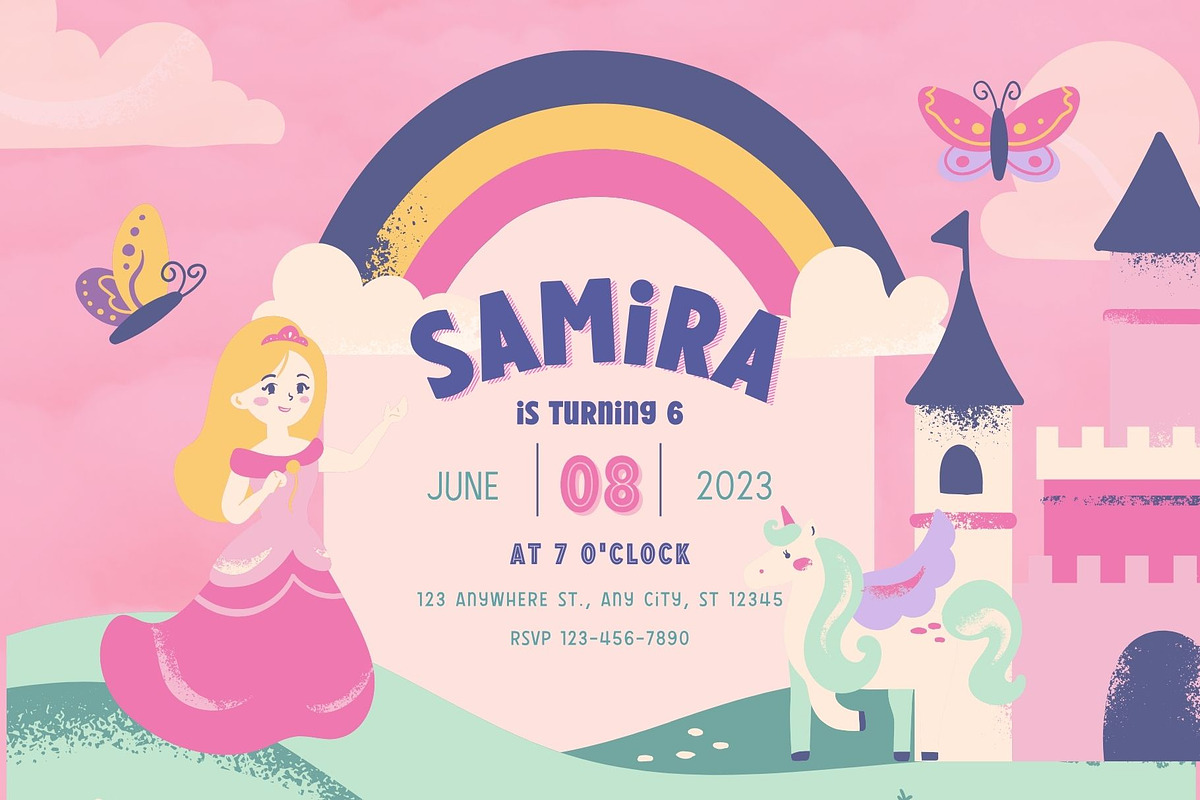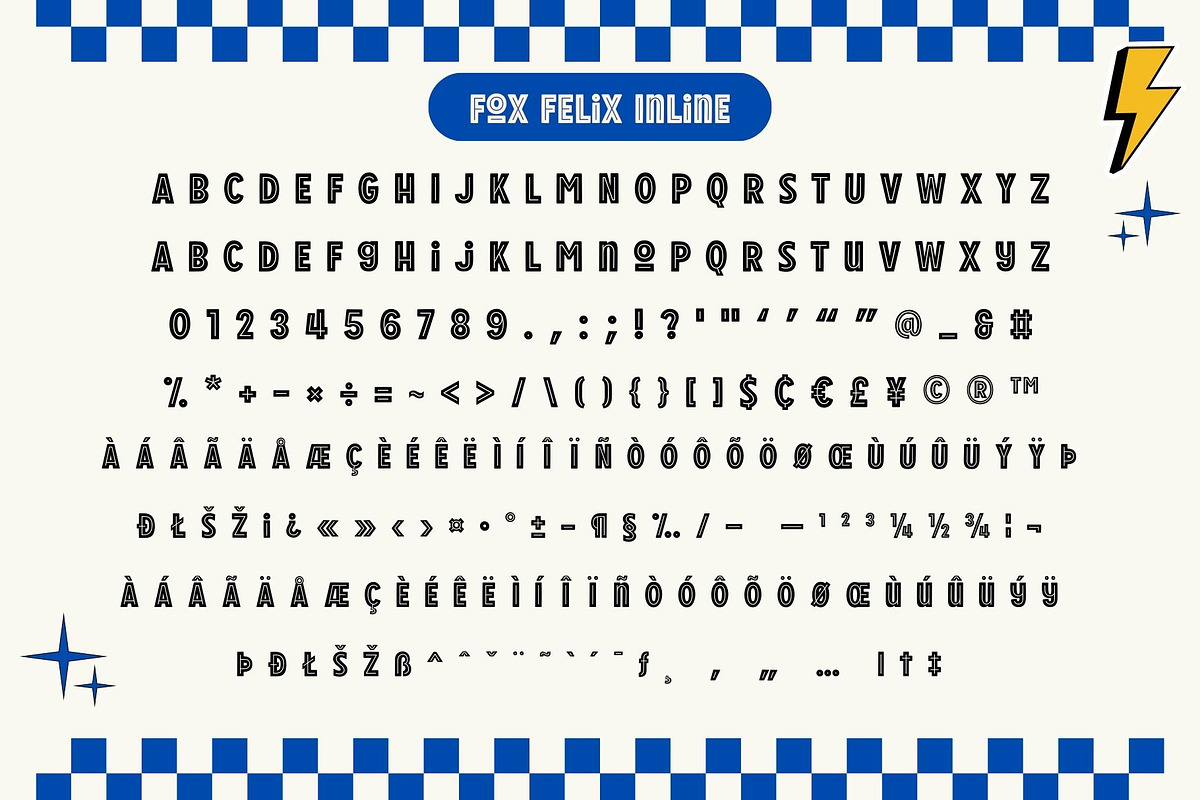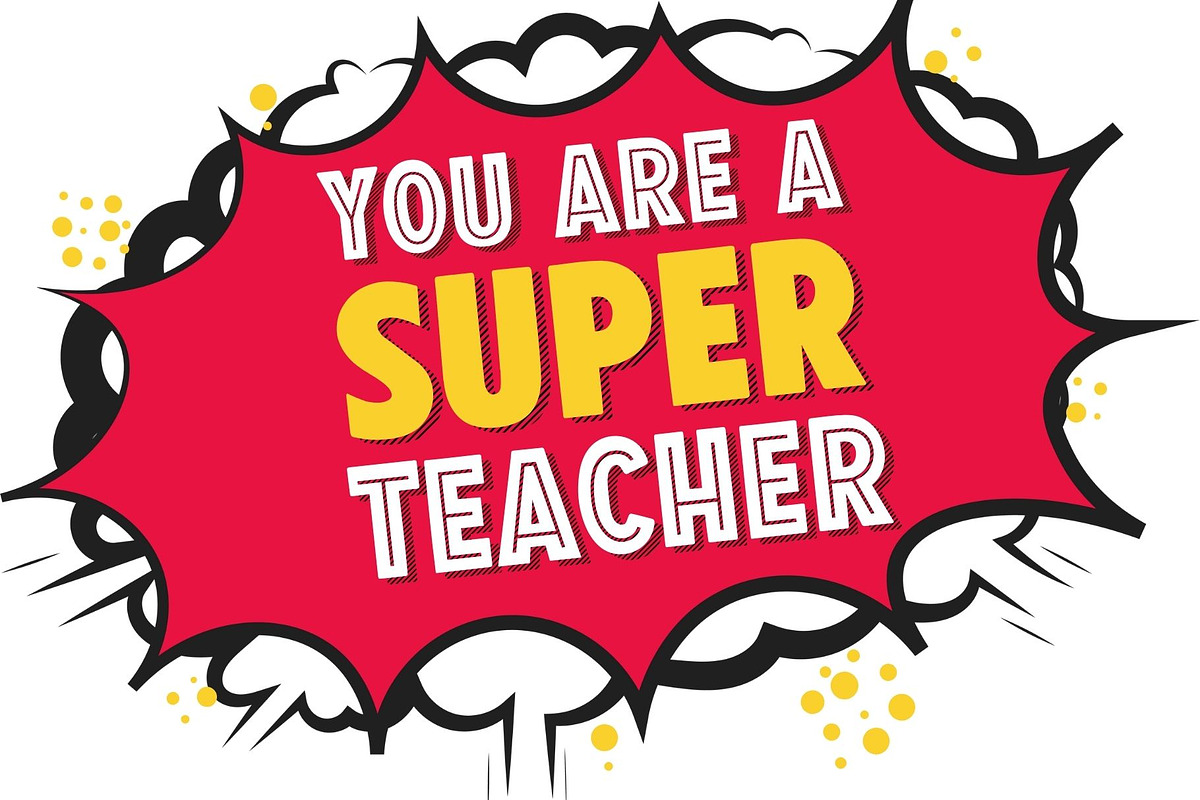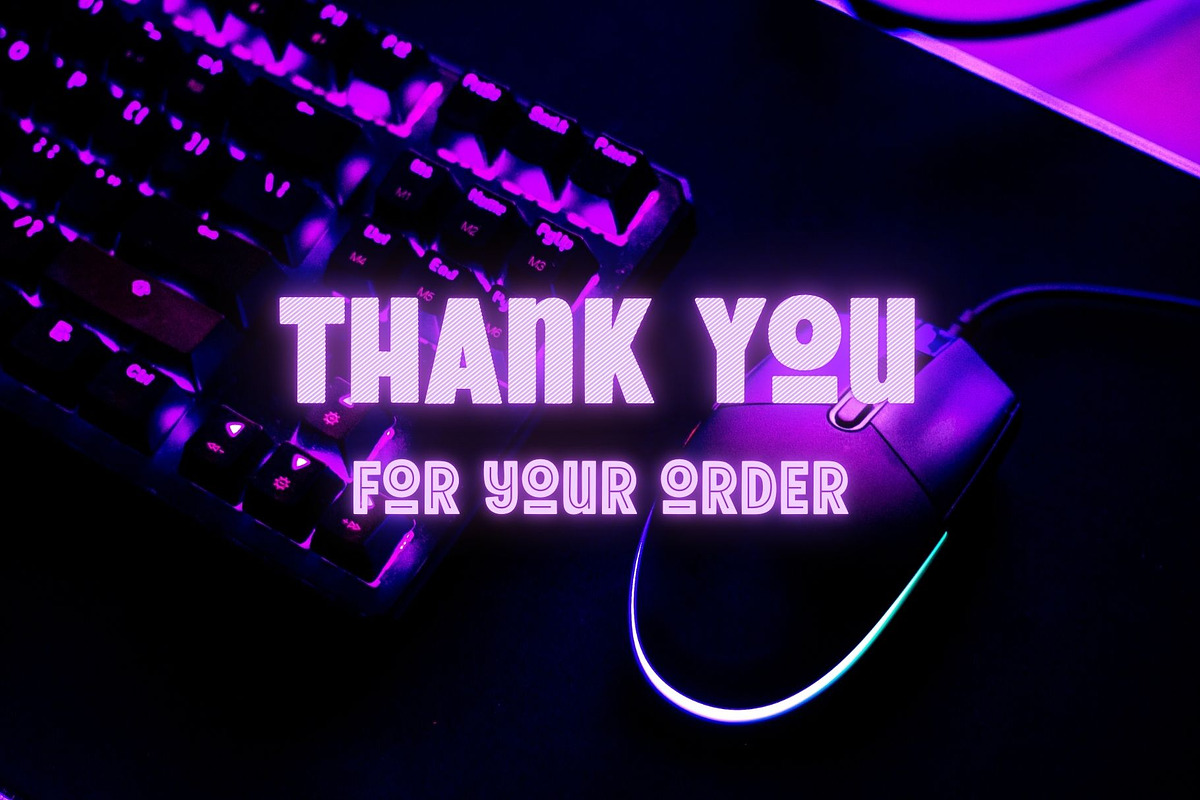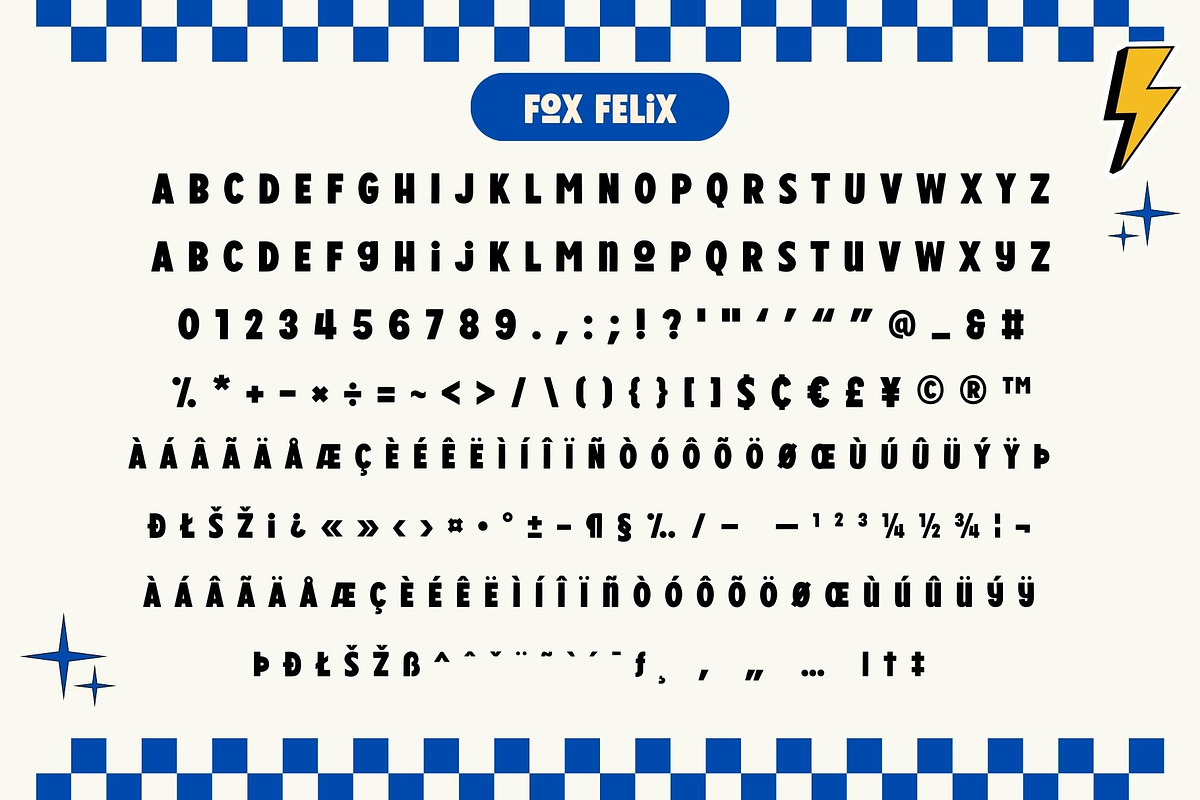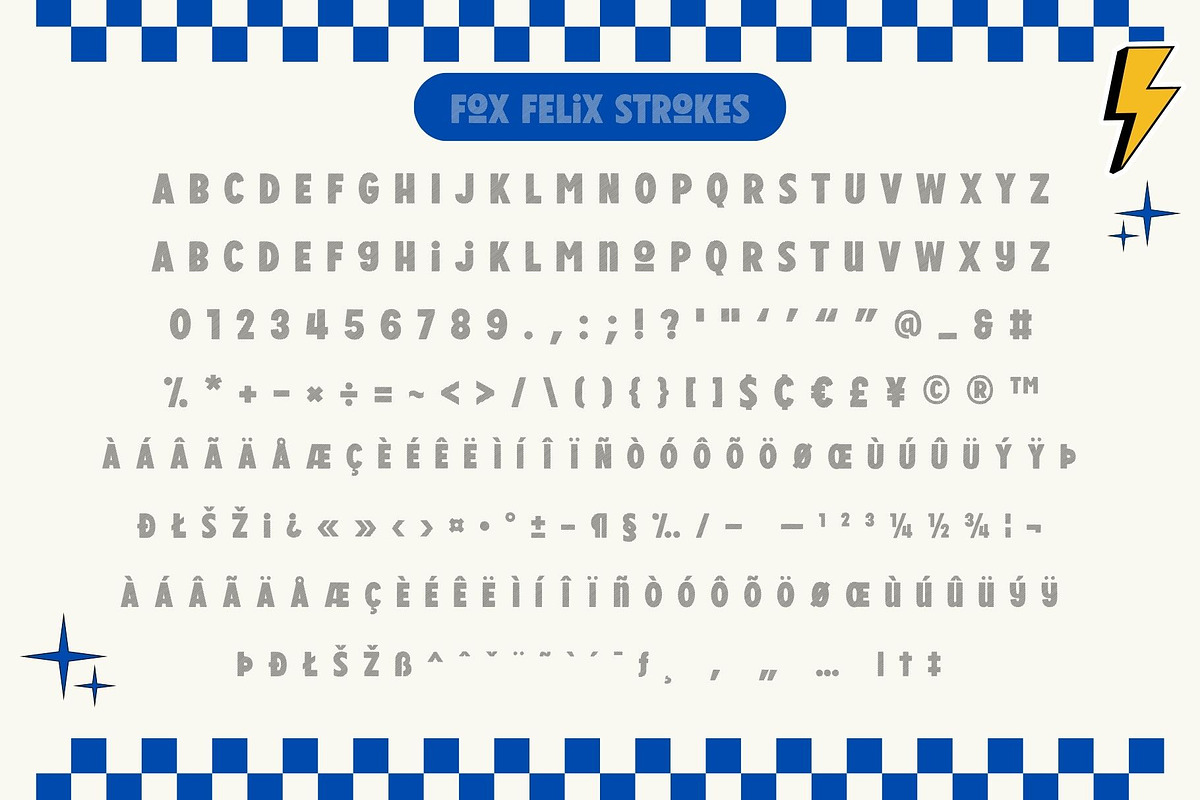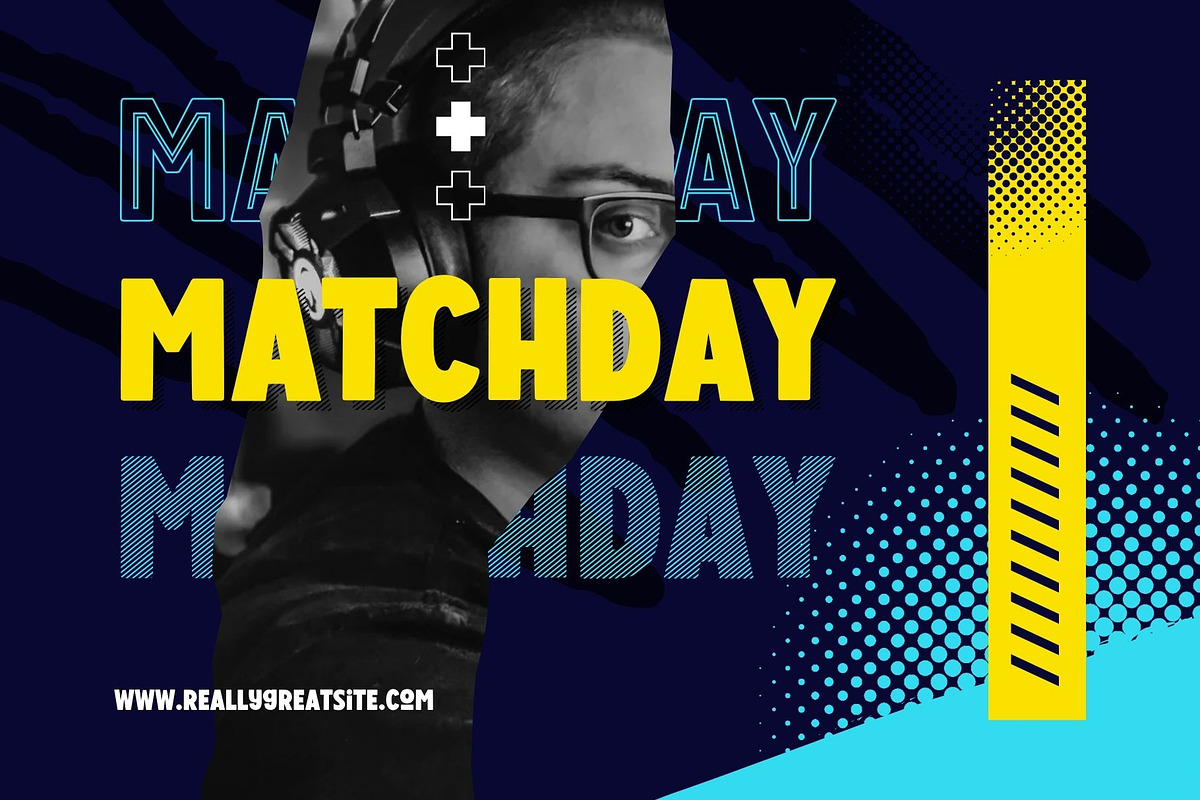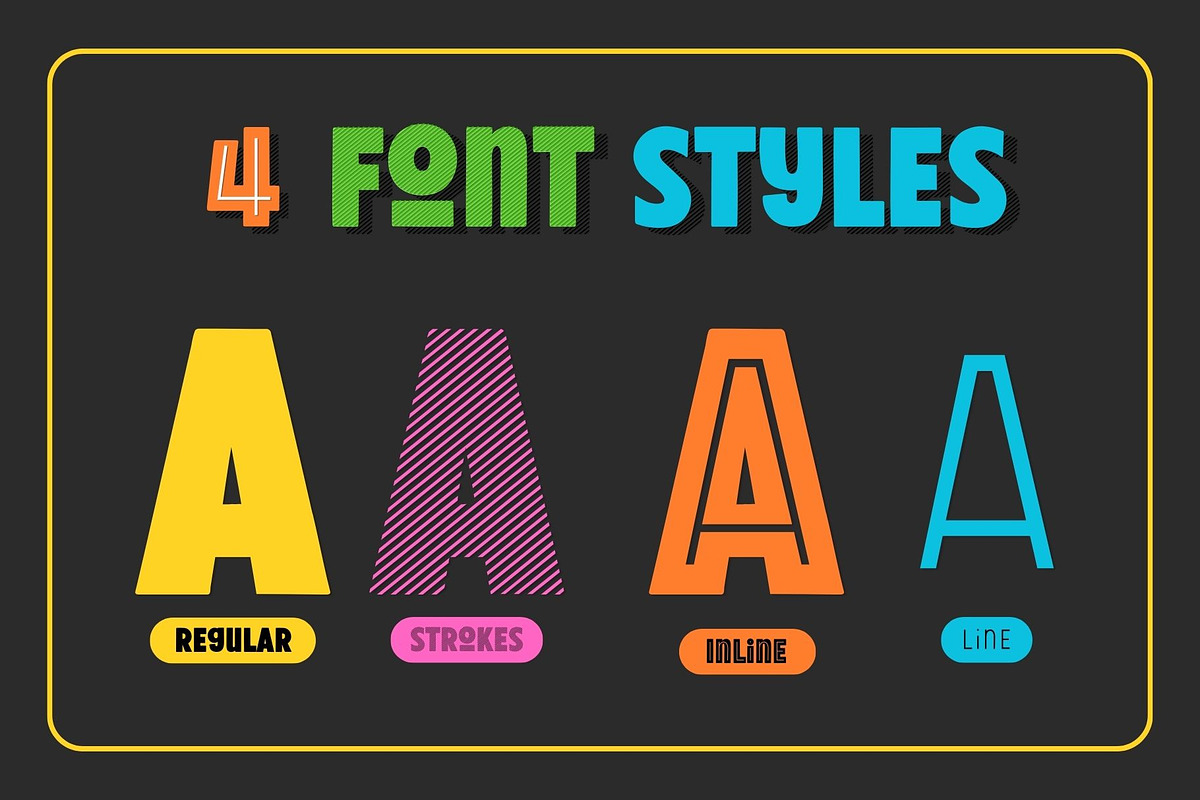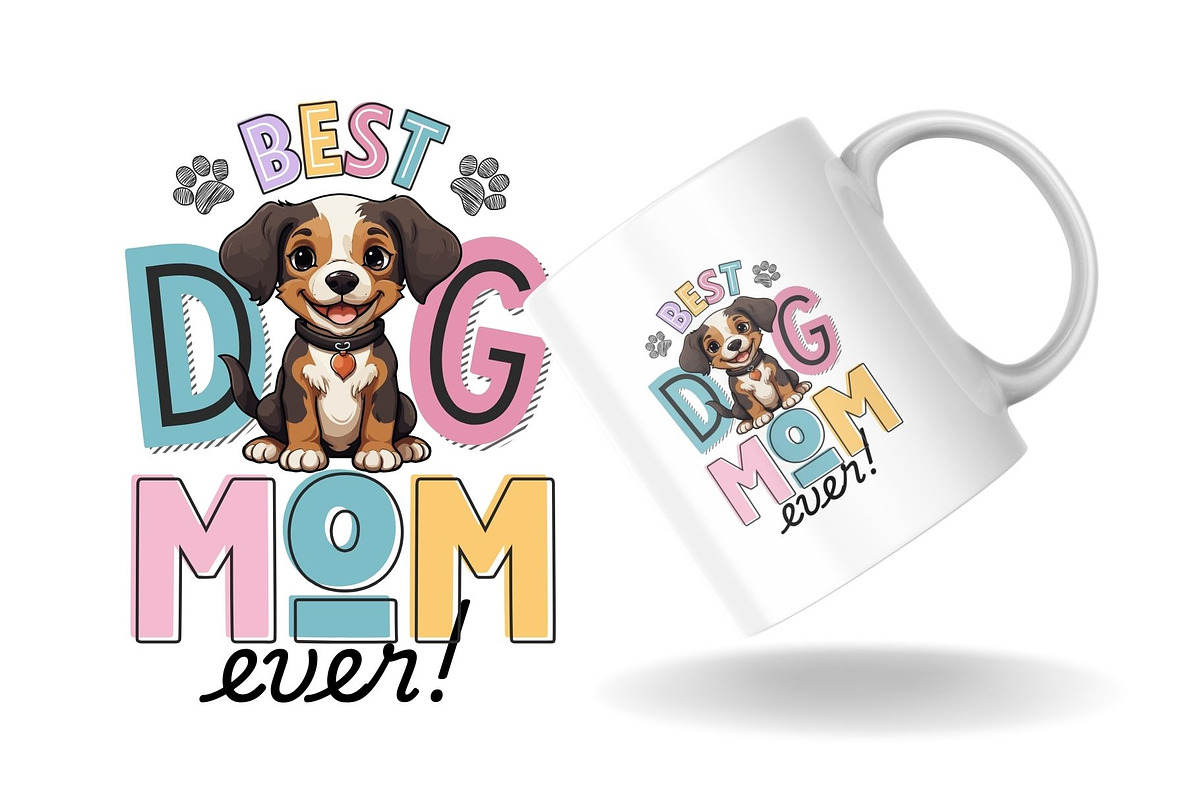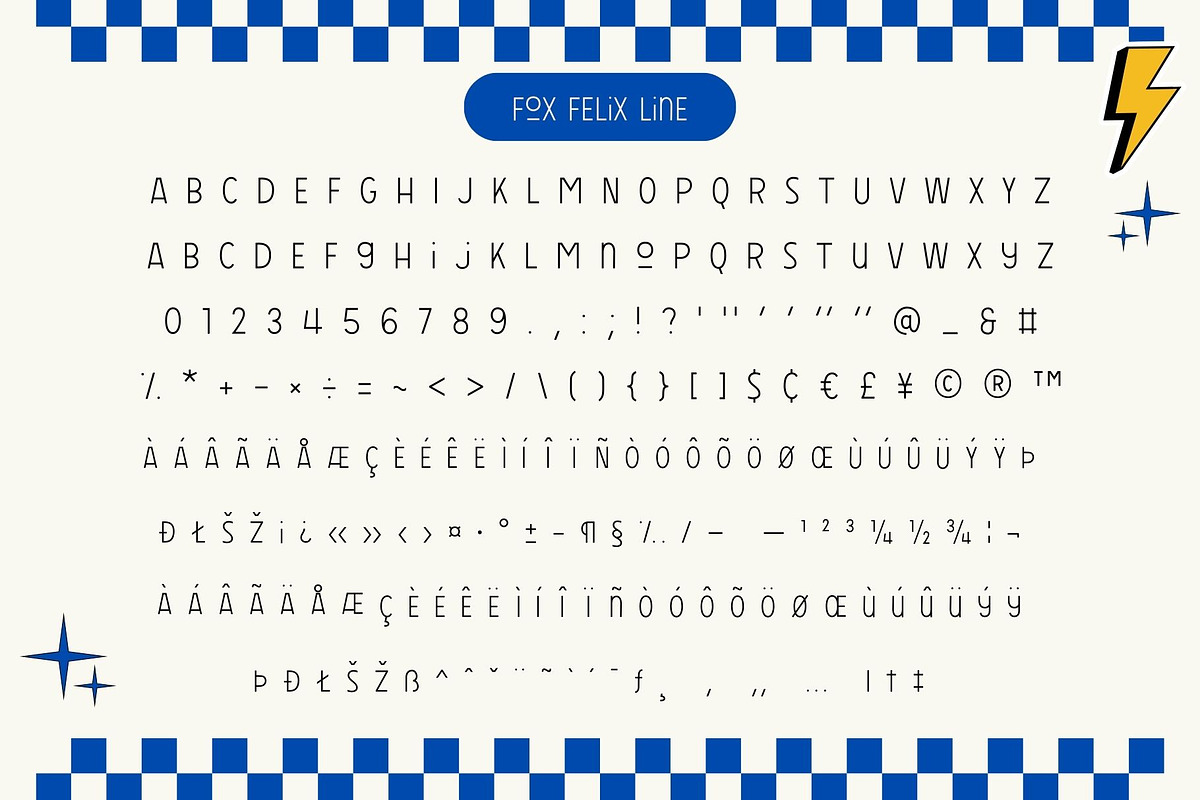
Fox Felix: 4 Font Styles
Fox Felix is a playful and vibrant display font perfect for adding a splash of color and fun to your designs. With its bold, retro-inspired letterforms and unique textures, this font stands out in any project. Fox Felix offers 4 versatile styles:
Regular: Clean and solid for a classic, bold look.
Strokes: Filled with diagonal lines for a dynamic and stylish touch.
Inline: A hollow design with an outlined structure for a modern aesthetic.
Line: Minimal and sleek, featuring only the essential lines.
Ideal for posters, headlines, branding, or anything that needs a lively, eye-catching vibe. Let Fox Felix bring your creative ideas to life!